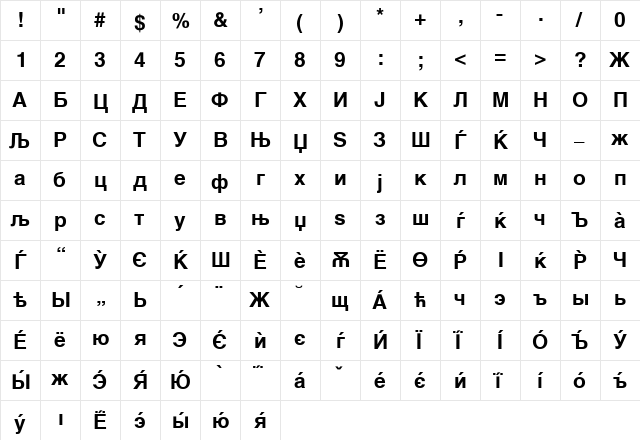
MakCirH Bold
Design Context for MakCirH Typeface
MakCirH takes a measured approach to typography — its balanced proportions and neutral character make it a reliable workhorse for both digital and print work. Its bold stroke weight gives it real presence on the page.